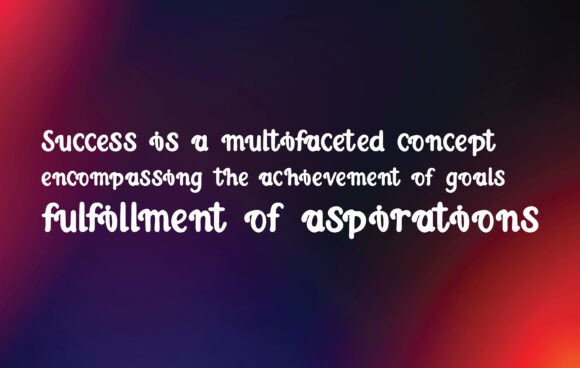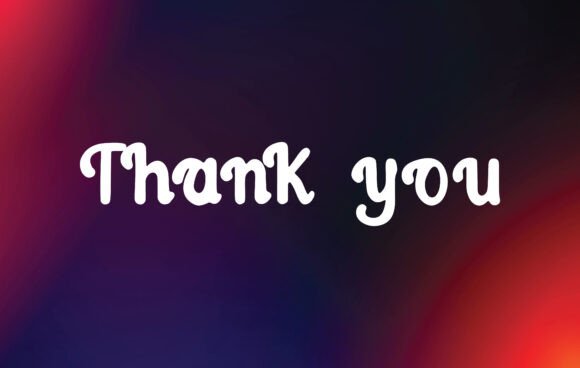
Introduction to Jahmir Font
Have you ever stared at a blank page, waiting for inspiration to strike? For designers, that moment can be a mix of excitement and anxiety. But what if you had the perfect tool to bring your creative ideas to life? Enter the Jahmir Font, a stunning handwritten font that’s about to revolutionize your design projects.
As a valuable resource for designers, the Jahmir Font offers a high-quality solution for creating eye-catching logos, branding, and quotes. Its beautiful and unique style makes it an ideal choice for any creative project. With its transparent background, you can easily integrate it into your design without any hassle. Plus, it’s available for free download, making it an accessible design resource for designers of all levels.
Key Features of Jahmir Font
- Designed with a modern and sleek aesthetic, perfect for use in logos, branding, and digital designs.
Honest Review: Jahmir Font
One of the standout features of the Jahmir Font is its high quality. The font is incredibly clear and crisp, making it perfect for any creative project that requires a professional touch.
- Perfect for creative projects that require a professional touch
- Limited font styles (only a few options available)
- Not suitable for complex or large-scale projects
Overall, I’m really impressed with the Jahmir Font. While it may have some limitations, it’s a great resource for designers who are looking for a high-quality font that’s easy to use and integrate into their projects.
I would definitely recommend the Jahmir Font to anyone looking for a reliable design resource.
Jahmir Font
The Jahmir Font is perfect for creative projects such as logos, social media graphics, and presentations. Its versatility and high quality make it a great addition to any design resource collection.
To get the most out of the Jahmir Font, experiment with different font sizes, colors, and layering techniques. This will help you unlock its full potential and create unique and eye-catching designs.
Can I customize the Jahmir Font for my design project?
Yes, the Jahmir Font is highly customizable, allowing designers to adjust the font’s size, color, and style to suit their design needs. Additionally, the font’s OpenType features enable advanced typographic effects, such as ligatures and swashes, which can add a touch of elegance to any design project.